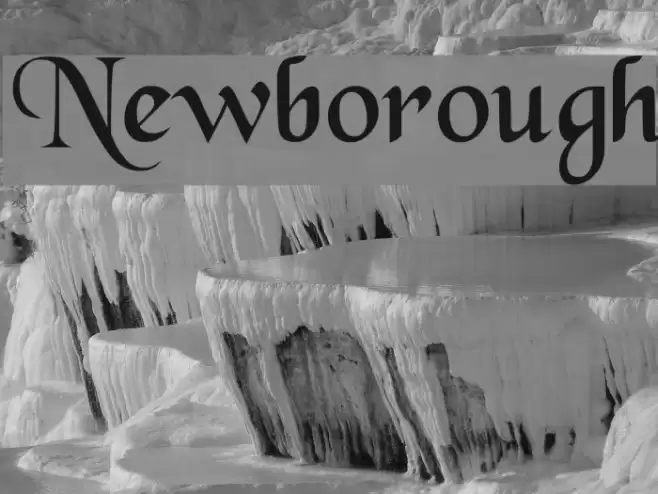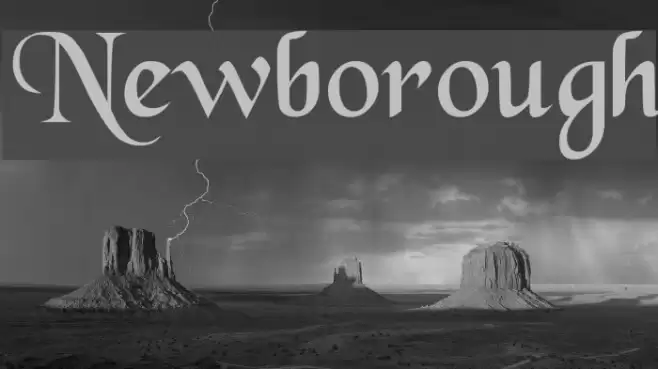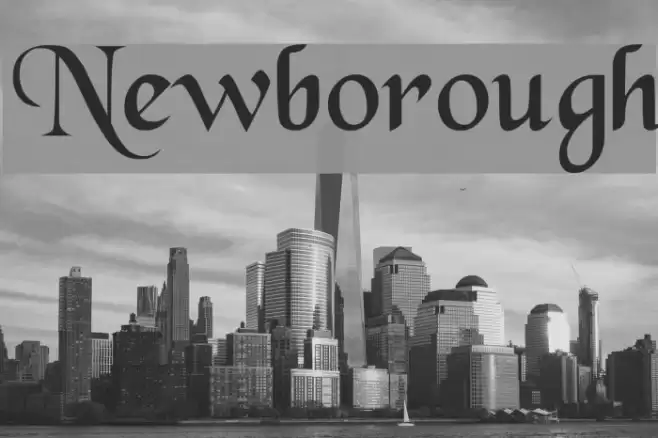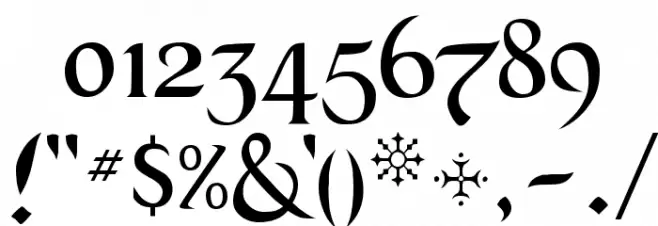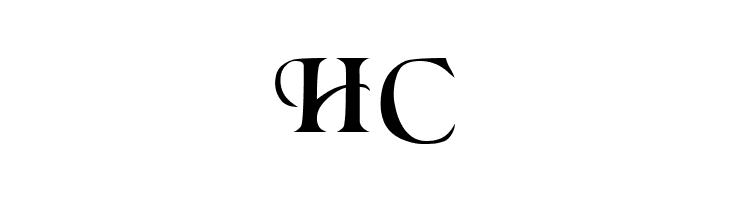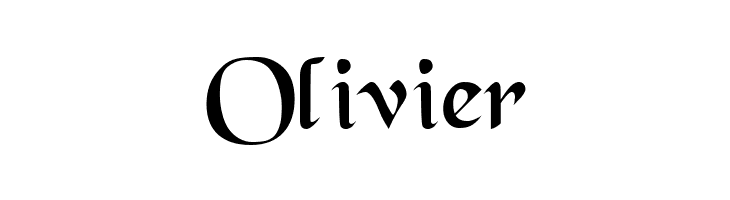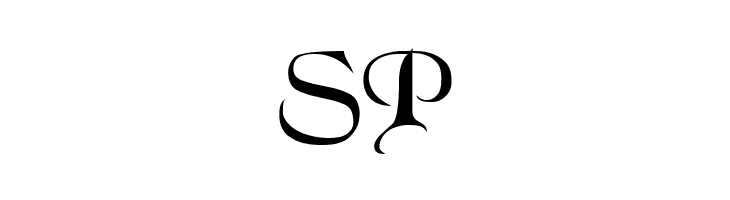
Newborough Font
Newborough Description
This font features a classic and elegant style with a calligraphic influence. The uppercase letters are adorned with flourishes and swashes, giving them a decorative and sophisticated appearance. The lowercase letters maintain a more traditional serif structure, yet they still carry a sense of fluidity and grace. The numerals are consistent with the overall style, featuring slight curves and a balanced weight. Special characters are designed with intricate details, enhancing the font's ornamental quality. This font is suitable for projects that require a touch of elegance and tradition.
A classic, calligraphic serif font with decorative flourishes from Uncategorized fonts.
- Proposed Projects: Ideal for wedding invitations, formal event programs, luxury branding, and editorial design.
- Overall Style: Classic
- Use Case: Headlines, Logos, Invitations